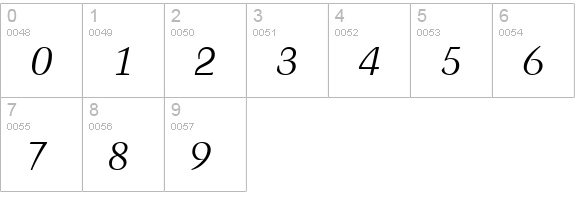
Blackford SSi Italic Font Details
Blackford SSi Italic is a distinctive, italic variant in the Blackford typeface family \xE2\x80\x94 well suited to design and typography projects.
The Blackford SSi Italic font is a sleek and modern typeface that exudes elegance and sophistication. Its italicized design adds a touch of flair and style to any text or design project. The smooth curves and unique letterforms of this font make it perfect for adding a touch of class to invitations, logos, branding materials, and more. What makes the Blackford SSi Italic font even more appealing is that it is available for free download at FontsMarket.com. This means that you can enhance your projects with this stunning font without having to spend a dime. Don't miss out on the opportunity to elevate your designs with the Blackford SSi Italic font - download it today and let your creativity shine!